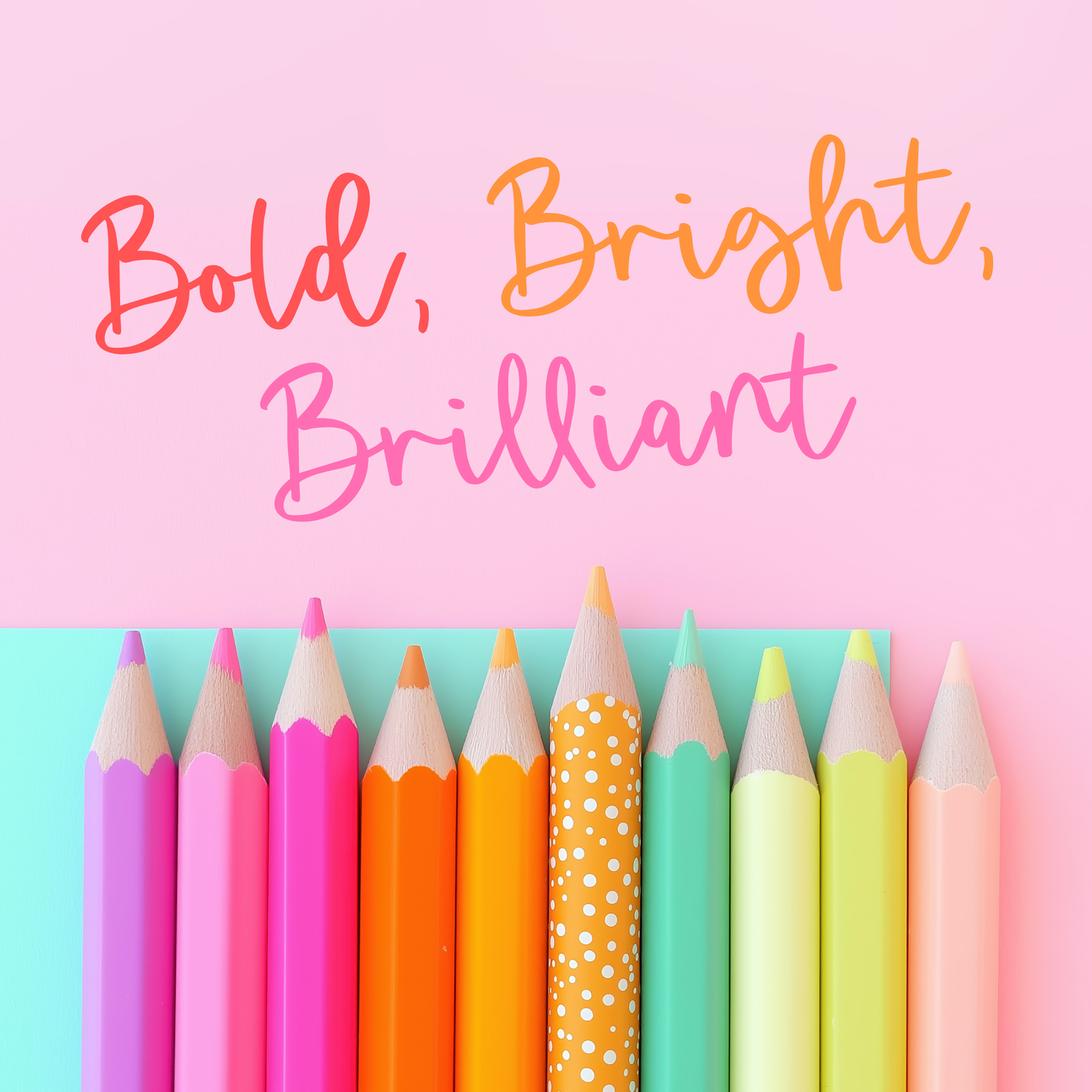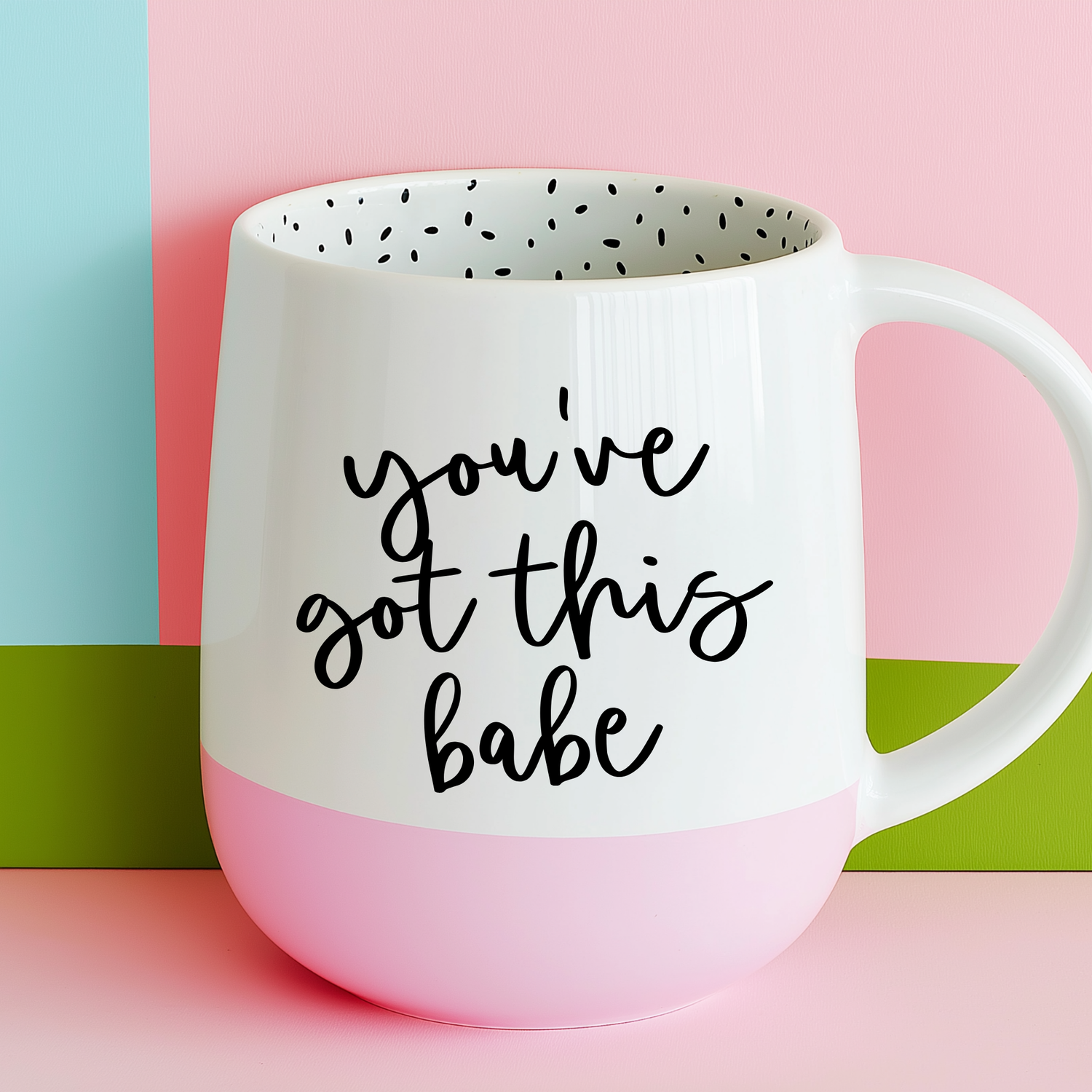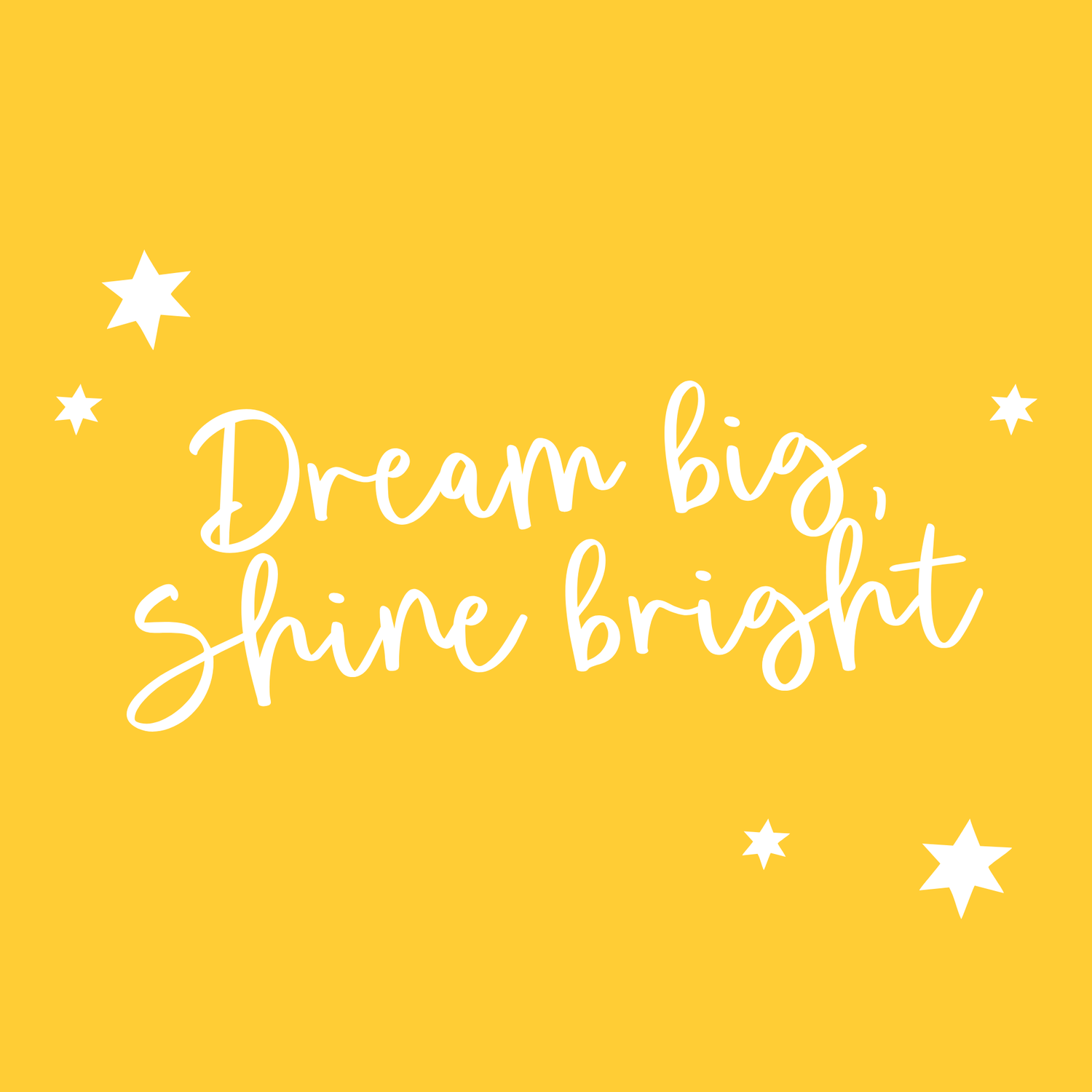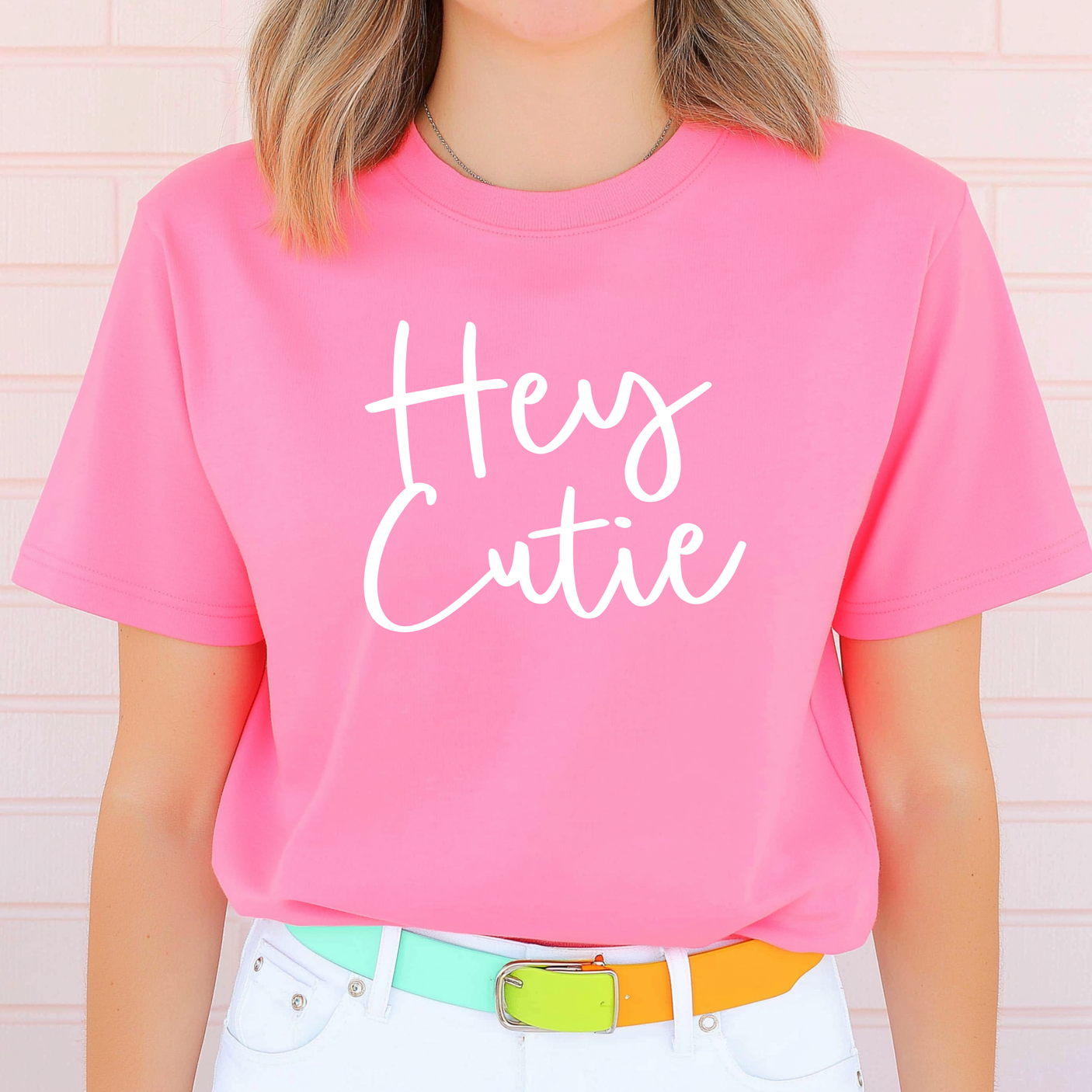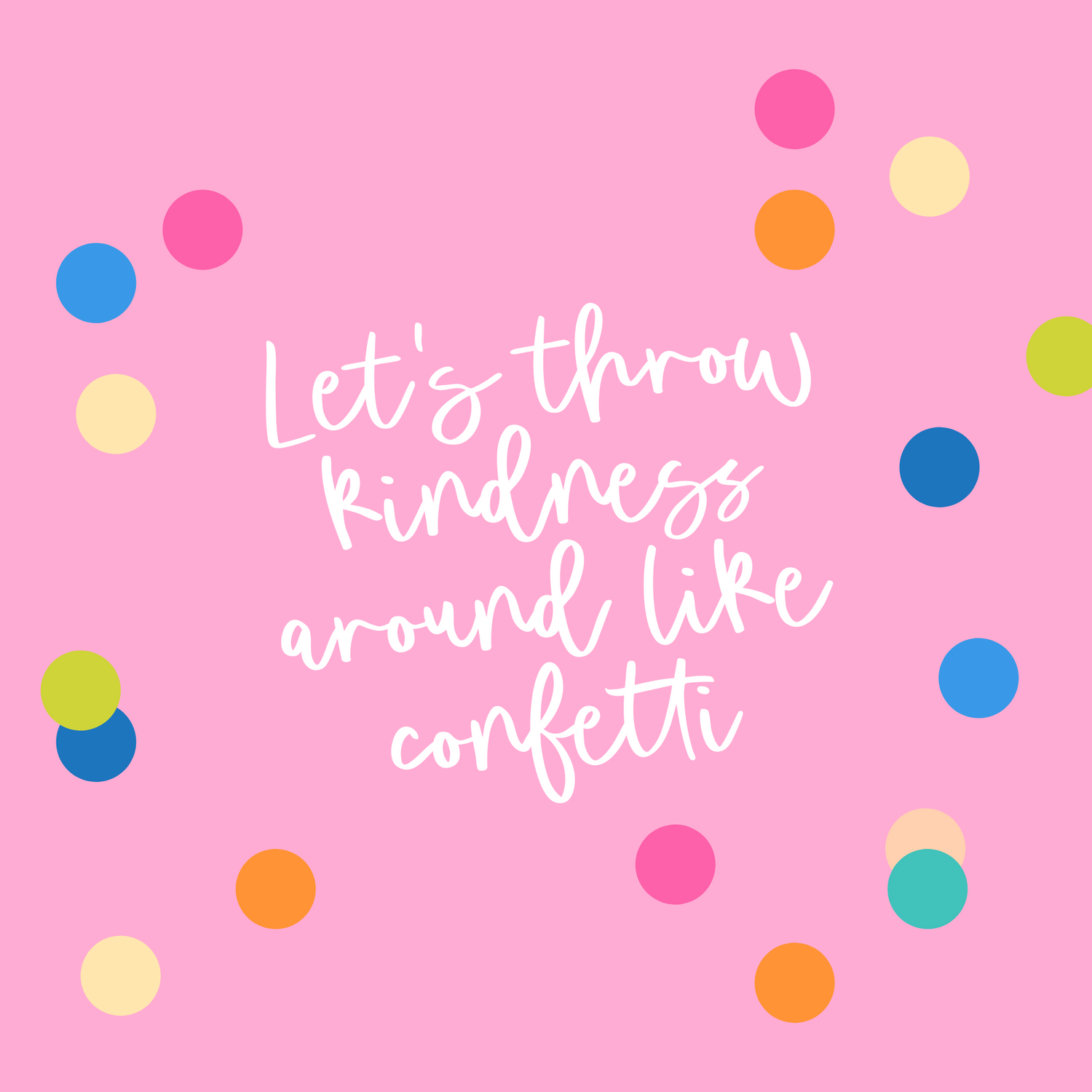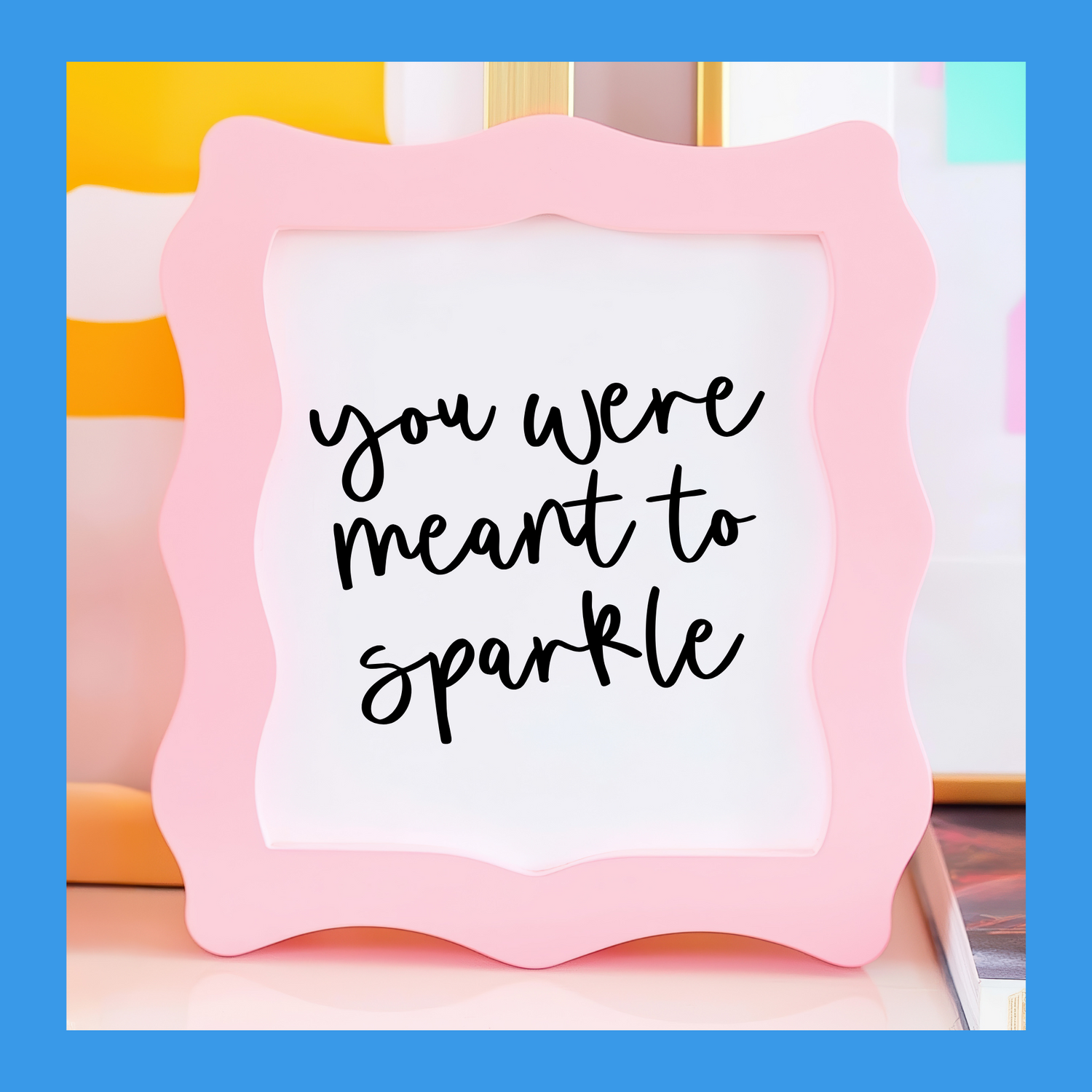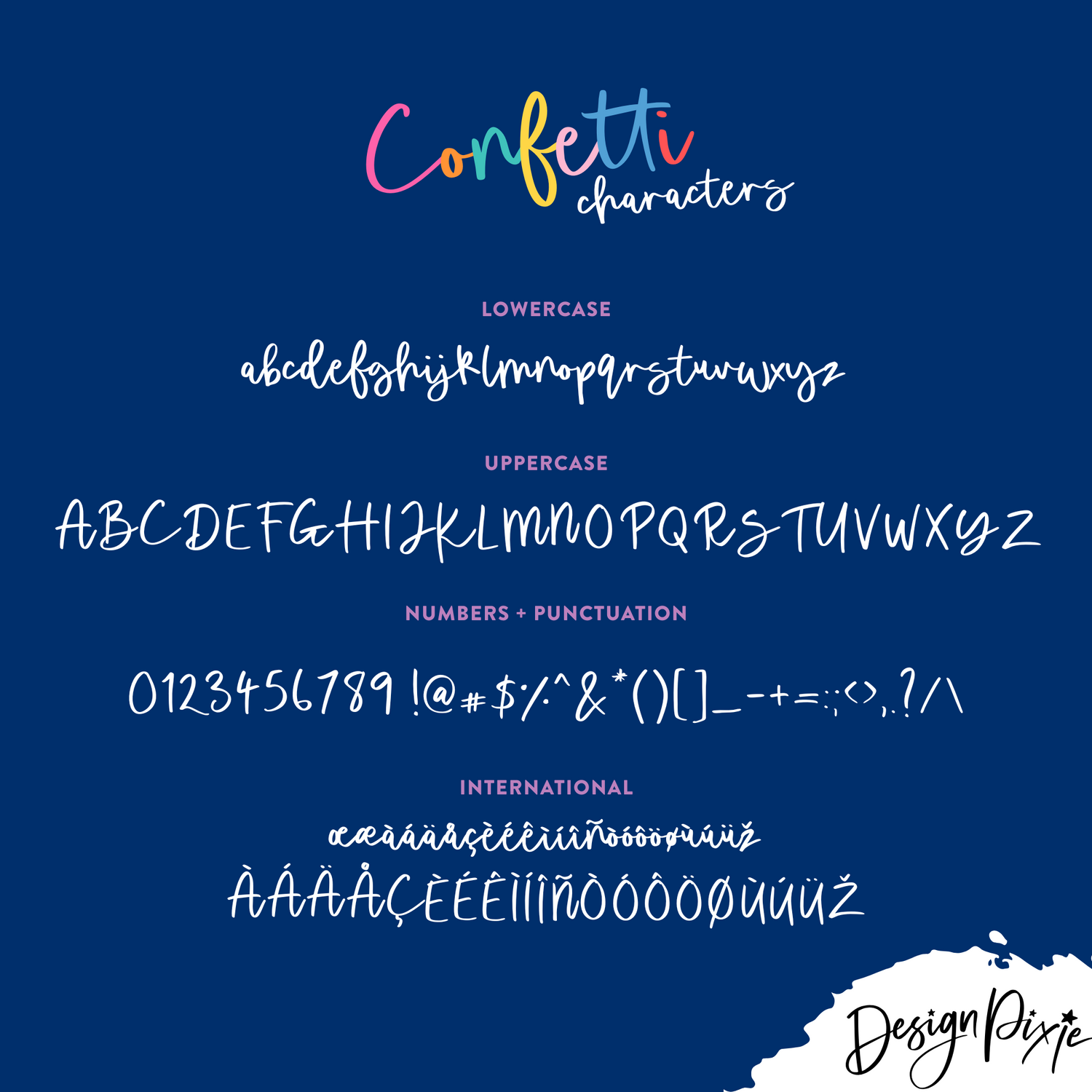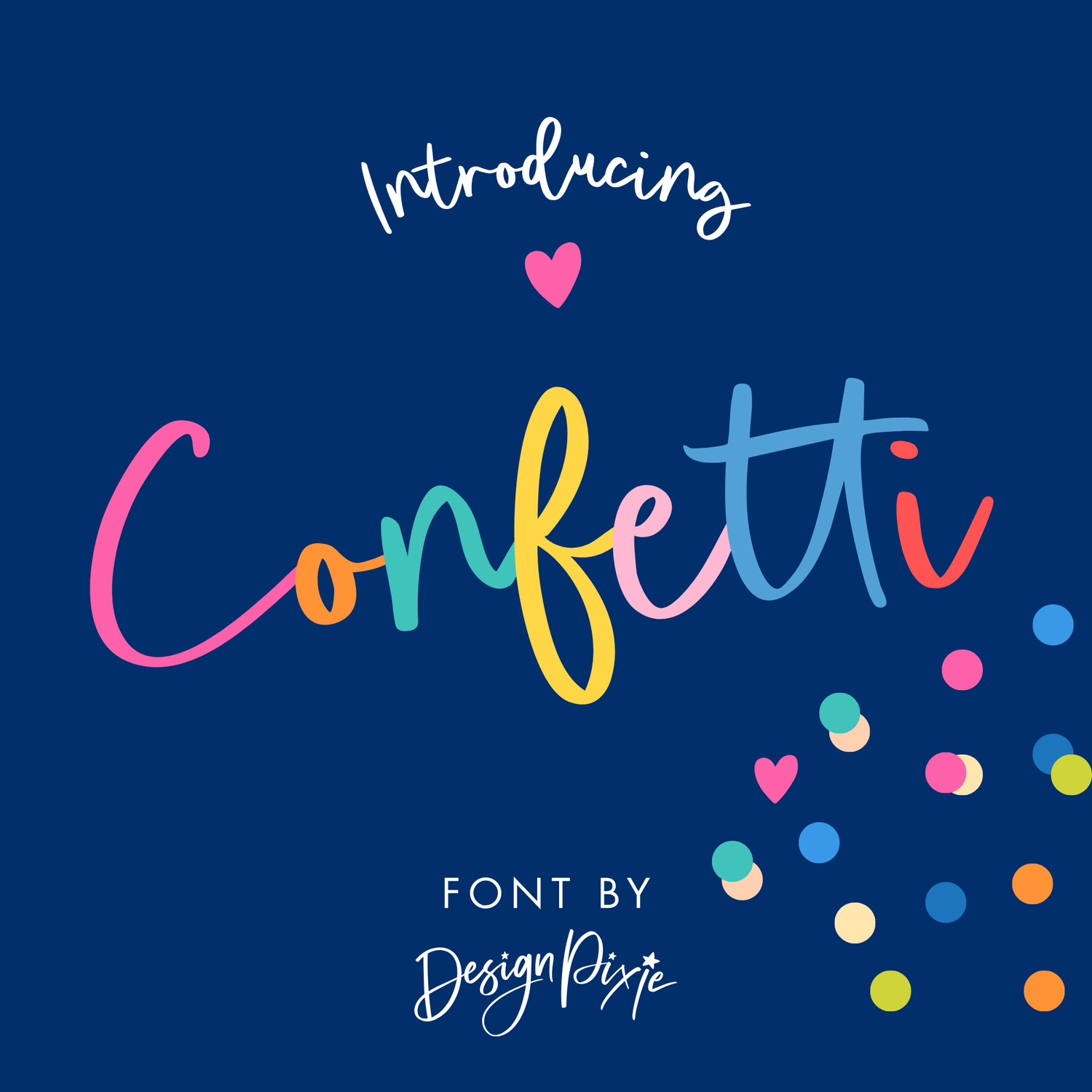
Confetti Font
Add a sprinkle of joy and charm to your designs with Confetti, a stylish handwritten script that feels like a lively brush pen in motion. Its playful, slightly bouncy letters bring warmth and personality to your work - perfect for lettering quotes, cute handwritten notes, invitations, and anything that needs a touch of handmade magic.
Whether you’re creating social media graphics, greeting cards or scrapbooking projects, Confetti makes your text feel fresh, fun, and effortlessly elegant. It’s the perfect font for adding a personal, creative vibe that stands out.
What you’ll love about Confetti Font:
- Playful, brush-pen style script with bouncy, natural flow
- Ideal for quotes, handwritten text, branding, and more
- Smooth, stylish strokes that feel warm and inviting
Bring your designs to life with Confetti, where every letter feels like a celebration!